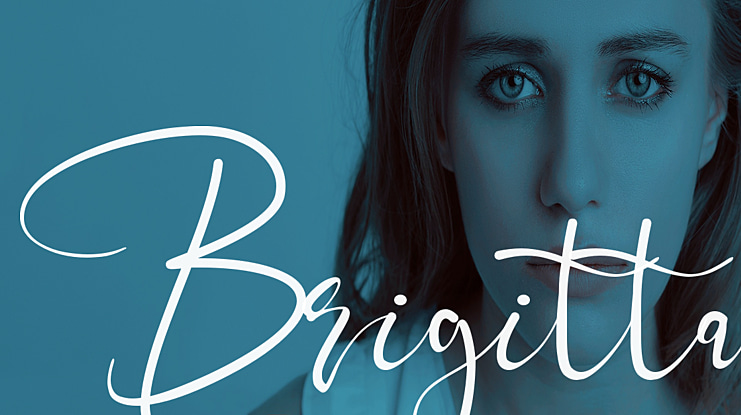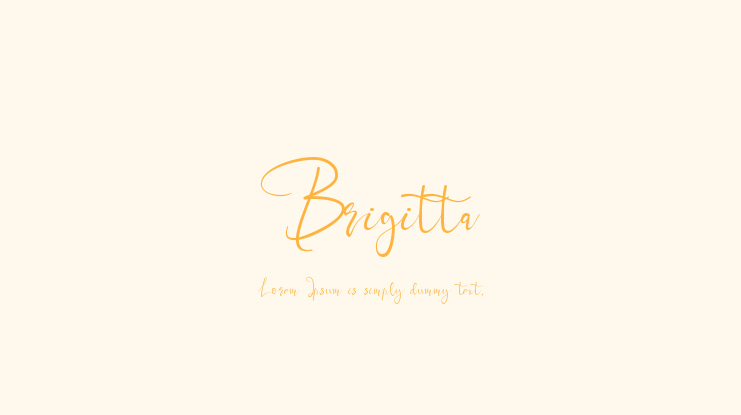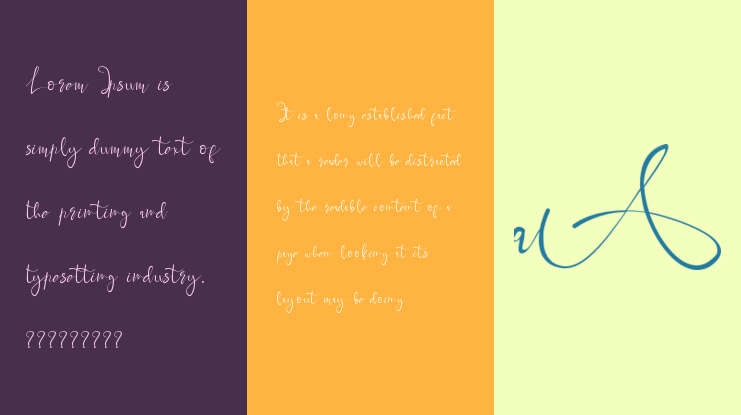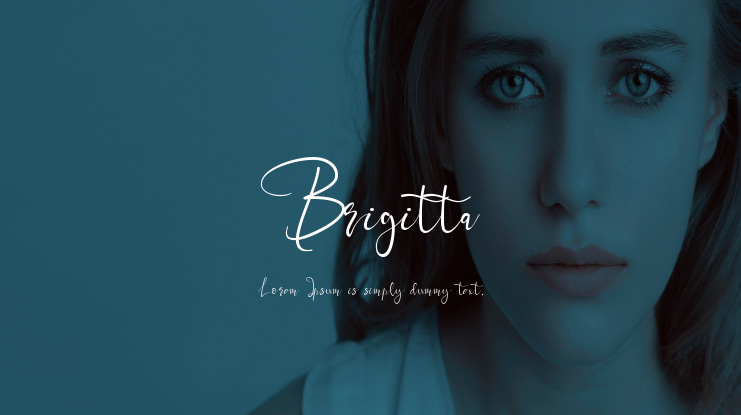
Brigitta Font
Carefully designed, Brigitta is a stunning and beautiful handwritten font with a light feel. Fall in love with its delicate and sophisticated characters, and use it for any design project that requires a romantic twist.
A wide range of swashes (a-z),  alternates (A-Z), titiling (a-z) and ligature  are included so that you can give your logo or name a custom, hand-calligraphy look.